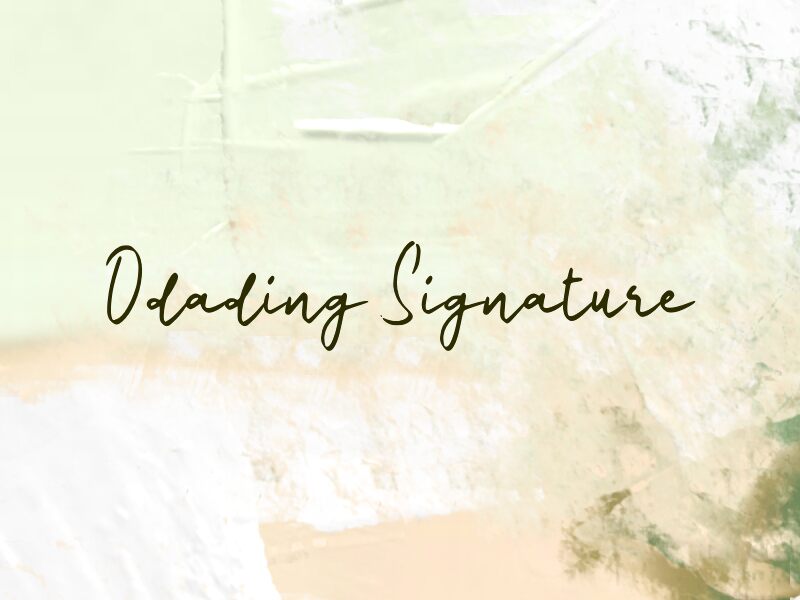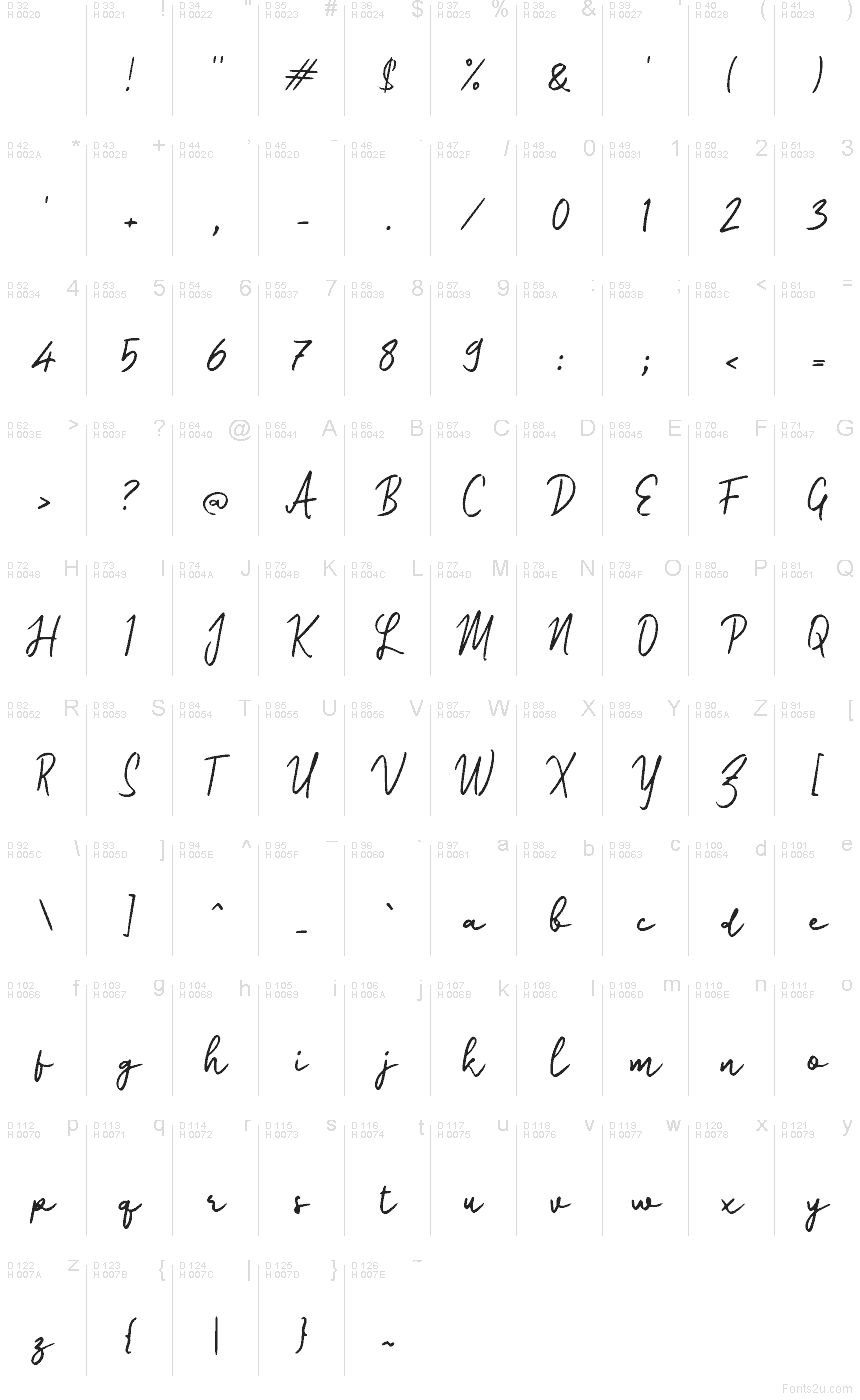
Odading Signature
Odading Signature font by wep is a free handwritten signature typeface with a breezy, ink-on-paper feel. Its loose, looping strokes and slight textural roughness mimic a quick, confident autograph rather than stiff calligraphy, giving designs an effortless, human touch. The letters connect in an easy, sloping rhythm, so names, short phrases, and brand marks feel like they were signed in real time.